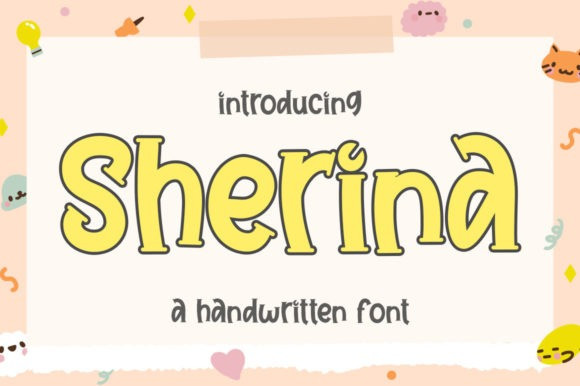
Sherina Typeface
Sherina Typeface, is a cool and bold display font. Whether you’re looking for fonts for Instagram or calligraphy scripts for DIY projects, this font will turn any creative idea into a true piece of art!